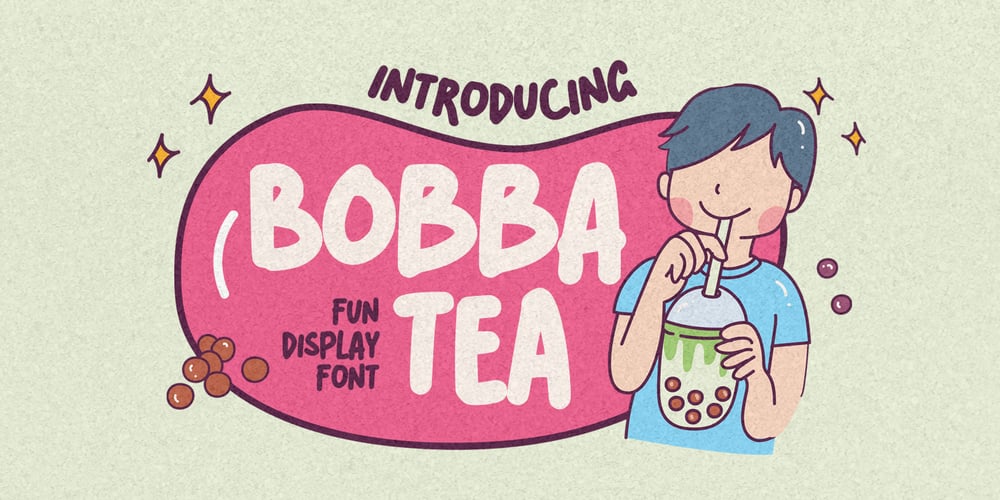
Bobba Tea Font Family was designed by Abdul Malik Wisnu, Anang Fibriyanto and published by Gassstype. Bobba Tea contains 1 styles and family package options. Here comes a New font, Introducing Bobba Tea It’s Fun Display Font is a Cute Craft style and Textured Natural Style , this font is great for your creative projects such as watermark on photography, and perfect for logos & branding, invitation,advertisements,product designs, stationery, wedding designs,label ,product packaging, special events or anything that need handwritting taste.Bobba Tea a natural funny Hand Drawn feel. It is perfect for any design project as Invitation,logo, book cover, craft or any design purposes,photos, photography overlays, signs, window art, scrapbooking, tags and so much more!Inspired by Food Logo style and combination with Cute Craft style. This font is PUA encoded which means you can access all of Alternates glyphs.